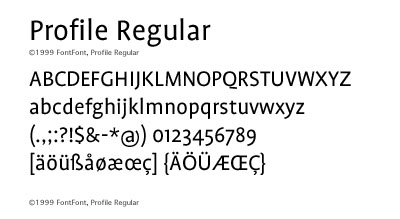
dot-font: Profile of a Modern Sans Serif
One of those rules of thumb we love to repeat to ourselves, especially in the United States, is that sans serif typefaces are inherently less readable in extended text than typefaces that have serifs. Sans serifs, the logic goes, are mechanical and lifeless; they’ve sacrificed the subtle warmth of an old-style serif typeface to the cold, cruel logic of the machine age. Yet this assumption has been challenged over recent decades by a significant number of type designers, most of them in Europe, who seem intent on creating a sort of warm modernism.
All this came to mind recently when perusing a new sample book from FontShop, which showcased FontShop’s FF Profile typeface. FF Profile is one of a growing number of sans serif typefaces that are characteristically clean and spare in appearance but that have little to do with established sans serif categories—the clunky 19th-century tradition of serifless grotesques or the rational, modernist 20th-century tradition of geometrical sans serifs.
This sample of FontShop’s FF Profile typeface shows the character set for its regular weight.
The Humanist Tradition
Of course every tradition needs an easily referenced and readily identifiable name, and these new variants march under the banner of “humanist sans serifs.” The name seems apt given their warmer design, but its genesis is well rooted in typographic history: These typefaces are based on the humanist handwriting of the 15th century and the old-style typefaces that followed them (and that dominated printing until nearly the time of the French Revolution).
Today’s humanist sans serifs follow those Renaissance forms, but they are stripped of their ornamentation and most of their contrast, reduced to their essential forms and then reconstituted in a variety of weights. One characteristic of almost all humanist sans serifs is that they have true italics, not just slanted romans as so many other sans serifs do.
FF Profile was designed by Martin Wenzel, a 32-year-old German designer from Berlin who studied in the Netherlands and now works in Delft with Buro Petr van Blokland + Claudia Mens. Even if you didn’t know he’d been a student at the Royal Academy for Fine and Applied Arts, in the Hague, it would be obvious to anyone with an eye for the fine points of type that he’d been influenced by the humanist Dutch typographic tradition. Profile clearly grows out of some of the same ideas and concerns that gave us Petr van Blokland’s Proforma and Luc(as) de Groot’s Thesis. (It also has some details in common with Erik Spiekermann’s Meta, which approaches the same problems from a somewhat different direction.)
The challenge with a sans serif typeface like this is to make it varied enough for comfortable reading in long blocks of text, yet simple and unornamented enough to define its space on the page. It should suggest an uncluttered, modern, clearly delineated world.
FontShop’s “FontFont Focus” specimen book displays FF Profile in lower case and small caps.
Disclaimer: I’m judging Profile entirely from printed samples; I’ve never put the fonts to use. And of course the new type-specimen booklet from FontShop (the fifth in its “FontFont Focus” series) is handsomely designed, in a way that would show any typeface off to its best advantage. The samples make me want to try out the face in various designs and layouts, much the way Thesis appealed to me the very first time I saw it. Profile has the same clarity and slim elegance that Thesis has, and a similarly open, spacious appearance. But Profile has a slightly warmer, less stark look, because of detailing like the small, skewed swellings at the ends of some strokes. Without jumping around or being too lively, Profile possesses a slight informality that makes it feel friendly.
Fine Details
Wenzel has given Profile humanist characteristics in the roman, such as the open aperture and small eye on the lowercase a and e, as well as a traditional two-story g. The italic, he points out, “is gently oblique and runs a little narrower and lighter than the respective roman.” Both roman and italic are spaced generously, not crowded together like an advertising headline face. The ends of some of the strokes are asymmetrical; in the v, for instance, the angles of the ends of the two arms are different.
Profile comes in five weights, and each includes roman, italic, small caps, and no fewer than five different sets of numerals: old-style (the standard), lining, monospaced old-style (for tables and columns of figures, as in an annual report), and small lining figures in both the superscript and baseline positions (for making fractions, among other things). Wenzel has provided a number of simple but useful ornaments, such as arrows in various directions and dotted lines and boxes, as well as such unusual characters as a euro symbol with only one crossbar (in addition to the standard one with two crossbars) and an alternate at sign that, as Wenzel puts it, “takes the at literally, as a ligature of a and t.” He even created appropriate versions of the various mathematical symbols that are part of every standard digital font, but that many type designers just let default to Symbol.
Interesting FF Profile touches include an alternative at symbol that represents the symbol as a ligature of a and t.
The Recipe
After describing some of the influences on the design of Profile (and making the usual disclaimer that it wasn’t based directly on any particular face), Wenzel whimsically describes what he calls “the recipe”:
Not a bad recipe for the typographic cuisine of the 21st century. We have a lot of fine reading ahead of us.